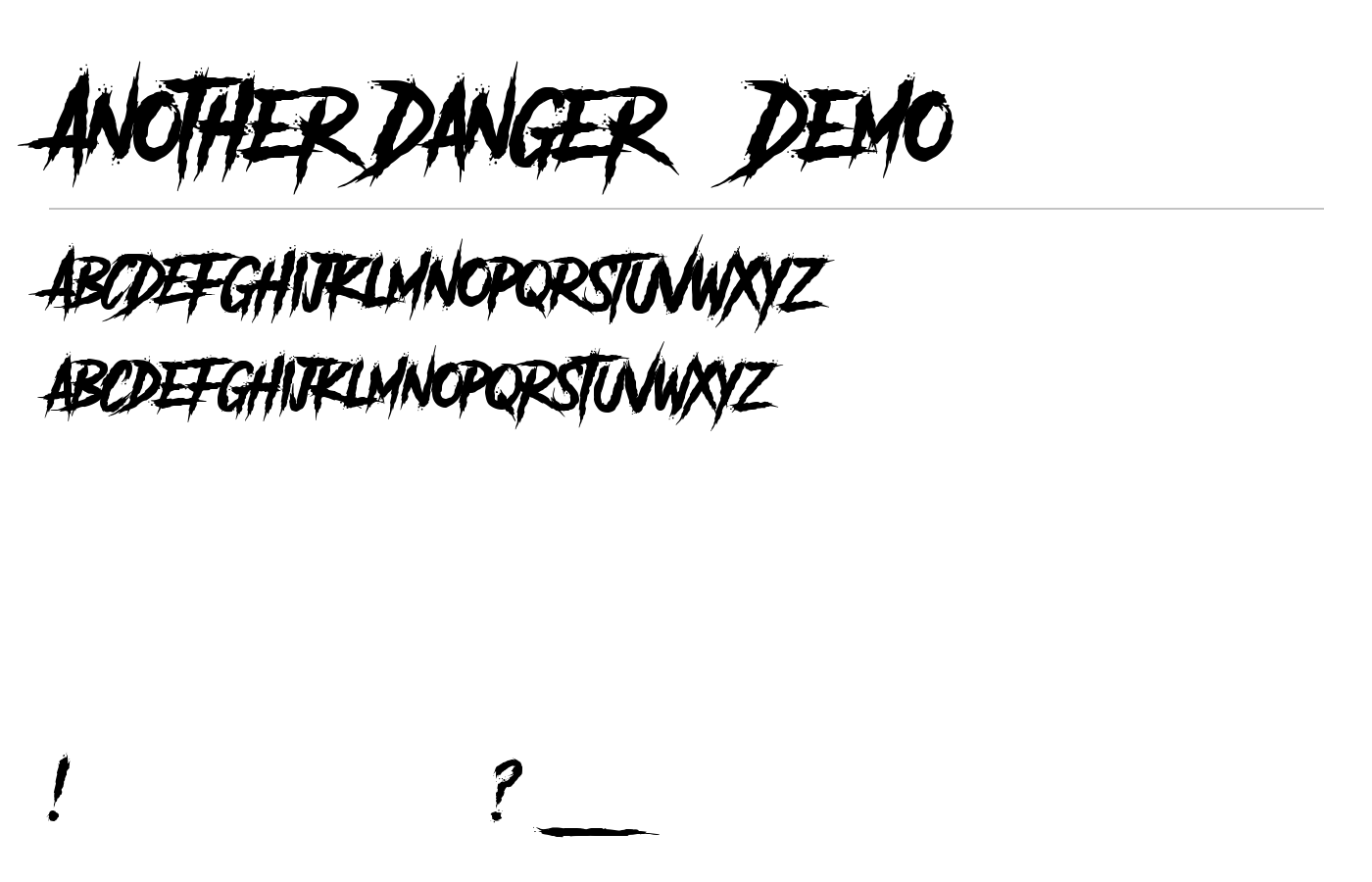
Another Danger - Demo is a bold, condensed display font with a rough, distressed brushstroke style that evokes a sense of urgency and raw energy. Its jagged edges and sharp, irregular strokes create a rebellious, edgy personality, making it ideal for designs that need to stand out with a dramatic and intense look, such as posters, branding for extreme sports, music, or horror-themed projects. This font works best in large sizes where its dynamic, hand-painted character can truly capture attention and convey a powerful, fearless spirit.
Another Danger - Demo Font
About Another Danger - Demo Font